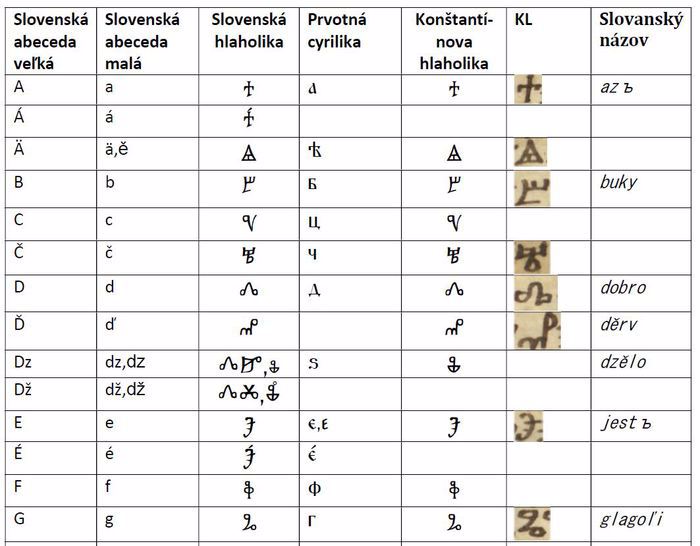
AhlaholikaUjoPalo Font
Hlaholika attempts to mimic the typefaces used prior to the 9th century. It also provides a range of Latin letters in the same style, sufficient for the needs of central, northern and western European languages.
The font fulfills two conditions. Transferring the modern Slovak and Czech alphabet, Russian Cyrillic to the glagolitic ( hlaholika ).
Convert Old Church Slavonic to glagolitic ( hlaholika )